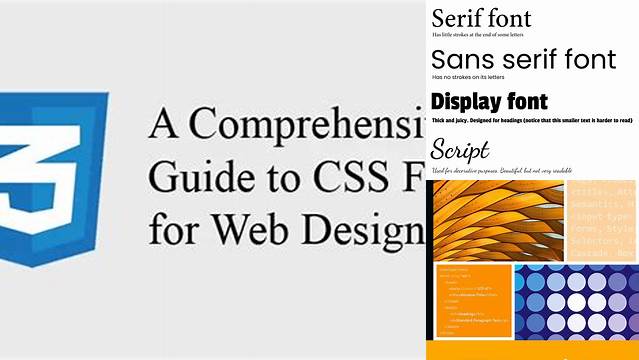
CSS Fonts For Websites: A Comprehensive Guide
In the realm of web design, choosing the right fonts is paramount. Fonts are not merely a visual element; they are the voice of your content, dictating how your message is perceived and understood. In this comprehensive guide, we'll dive deep into the world of CSS fonts for websites, exploring everything from the basics of font selection to advanced techniques for implementation and optimization. So, whether you're a seasoned developer or just starting your web design journey, buckle up and let's embark on this typographic adventure together!
Understanding the Fundamentals of CSS Fonts
What are CSS Fonts?
CSS fonts are the cornerstone of web typography. They allow you to control the visual appearance of text on your website, dictating the typeface, size, weight, and style. In essence, CSS fonts empower you to shape the reading experience, ensuring your content is both legible and visually appealing. Selecting the perfect fonts can significantly enhance user engagement, reinforce your brand identity, and create a cohesive design aesthetic.
Font Families: Serif vs. Sans-serif
When it comes to font selection, the first major decision you'll encounter is choosing between serif and sans-serif font families. These two categories represent distinct visual styles with their own unique characteristics and applications.
Serif Fonts: These fonts are characterized by small decorative strokes, known as serifs, at the ends of the letters. Serif fonts often convey a sense of tradition, formality, and elegance. They are commonly used for body text in print materials like books and newspapers due to their readability in long passages. Popular serif fonts include Times New Roman, Georgia, and Garamond.
Sans-serif Fonts: In contrast, sans-serif fonts lack these decorative strokes, resulting in a cleaner, more modern appearance. Sans-serif fonts are often associated with simplicity, clarity, and contemporary design. They are frequently used for headings, logos, and digital interfaces where readability on screens is crucial. Common sans-serif fonts include Arial, Helvetica, and Open Sans.
Web-Safe Fonts: Ensuring Cross-Browser Compatibility
In the early days of the web, font selection was limited to a handful of "web-safe" fonts. These fonts were pre-installed on most operating systems, guaranteeing consistent rendering across different browsers and devices. While the web has evolved significantly since then, understanding web-safe fonts is still valuable for ensuring basic legibility and fallback options.
Some of the most common web-safe fonts include:
- Arial (sans-serif)
- Helvetica (sans-serif)
- Times New Roman (serif)
- Georgia (serif)
- Courier New (monospace)
- Verdana (sans-serif)
- Trebuchet MS (sans-serif)
While web-safe fonts offer reliability, they can also be limiting in terms of design flexibility. Fortunately, modern web technologies like CSS font-face have opened up a world of possibilities, allowing you to use custom fonts on your website.
Implementing CSS Fonts: Techniques and Best Practices
The font-family Property: Your Key to Font Selection
The font-family property is the cornerstone of CSS font implementation. It allows you to specify a list of font names, in order of preference, that the browser should use to render text. This is crucial for ensuring a consistent and visually appealing reading experience across various devices and browsers. The browser will attempt to use the first font in the list, and if that font is not available, it will move on to the next font in the list, and so on, until it finds a font it can use or reaches the generic font family.
body {
font-family: "Open Sans", Arial, sans-serif;
}
In this example, the browser will first try to use the "Open Sans" font. If it's not available, it will fall back to Arial. If Arial is also not available, it will use the default sans-serif font for the user's system. This ensures that your text will always be readable, even if your preferred font is not installed on the user's device. By providing a fallback font stack, you are essentially creating a safety net for your typography.
Using Generic Font Families: Ensuring Readability
At the end of your font-family list, it's crucial to include a generic font family. Generic font families are broad categories that represent font styles, such as serif, sans-serif, monospace, cursive, and fantasy. These generic families serve as a last resort, ensuring that the browser always has a font to use, even if none of your preferred fonts are available. This is especially important for maintaining the readability and usability of your website across different systems and browsers.
serif: A generic font family that represents serif fonts, such as Times New Roman or Georgia.sans-serif: A generic font family that represents sans-serif fonts, such as Arial or Helvetica.monospace: A generic font family that represents monospace fonts, where each character has the same width, such as Courier New.cursive: A generic font family that represents cursive fonts, which resemble handwriting.fantasy: A generic font family that represents decorative or unusual fonts.
Conclusion: Mastering CSS Fonts for Web Design
In conclusion, mastering CSS fonts is essential for creating visually appealing and user-friendly websites. By understanding the fundamentals of font selection, implementing best practices for font loading, and exploring advanced techniques for styling text, you can elevate your web design skills and create truly engaging user experiences. From choosing the right font families to optimizing performance and adding stylistic flair, CSS fonts offer a wealth of possibilities for shaping the voice of your content. So, go forth and experiment, explore, and create beautiful typography that captivates your audience! Happy designing, guys!